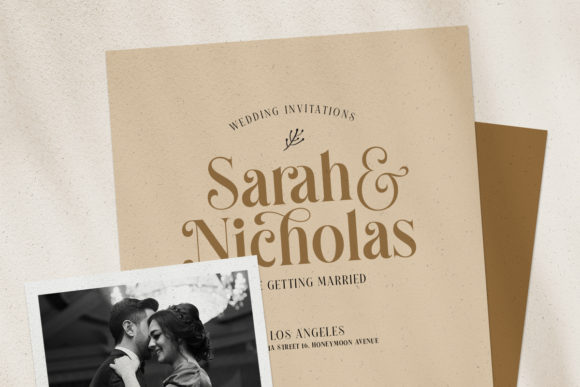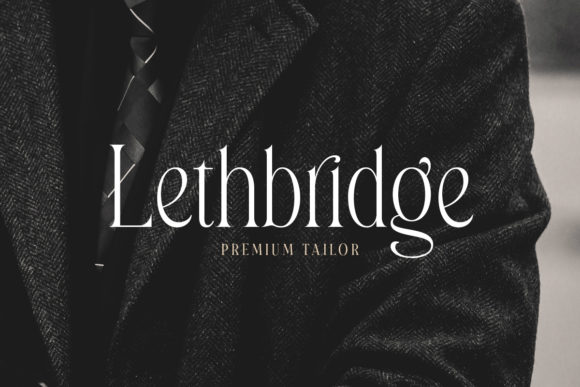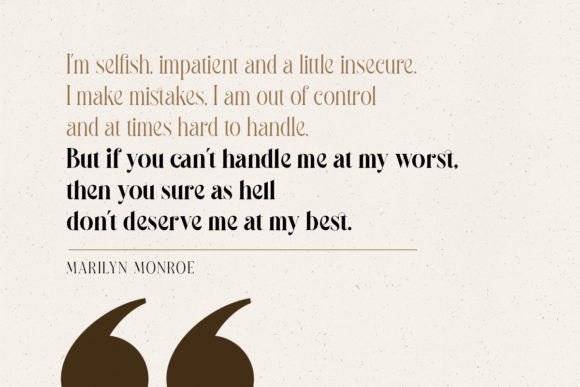
Introduction to Madegra Font
Madegra is an elegant serif font, with an incredibly nostalgic feel.
Use this serif font to add that special retro touch to any design idea you can think of This font is PUA encoded which means you can access all of the glyphs and swashes with ease.